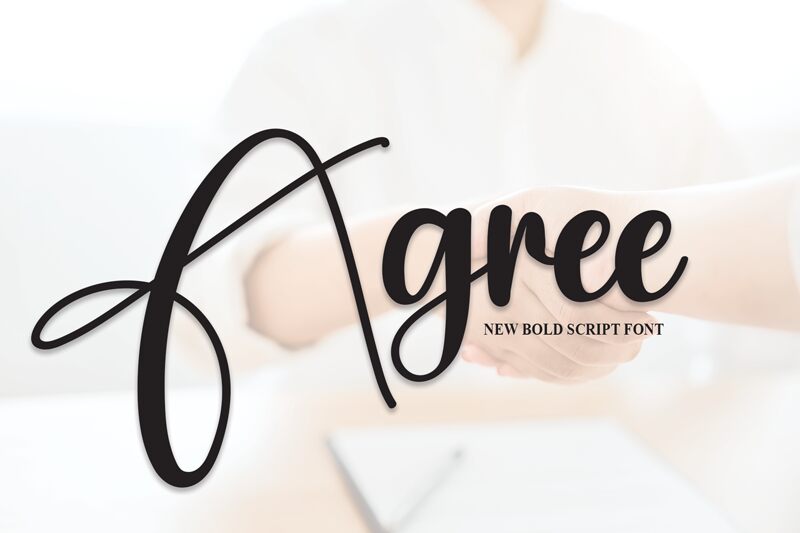
Agree
Agree, designed by Scratchones, is a calligraphy font that exudes elegance and fluidity. Its sweeping curves and fine lines are reminiscent of traditional handwriting, yet carry a modern twist that makes it perfect for contemporary design work. The graceful flow of the letters in Agree suggests a sense of sophistication and charm, making it an ideal choice for wedding invitations, branding materials, and upscale advertising campaigns.
The font's aesthetic appeal lies in its harmonious balance between decorative elements and legibility. Each character is crafted with attention to detail, ensuring that while the style is ornate, the readability remains uncompromised. Agree's versatility extends to digital platforms as well, where its artistic strokes can add a personal touch to websites or social media graphics.
With its calligraphic beauty and stylish appearance, Agree stands out as more than just text—it transforms words into art. Whether employed in print or online mediums, this font has the potential to elevate any creative project with its distinct flair and visual impact.